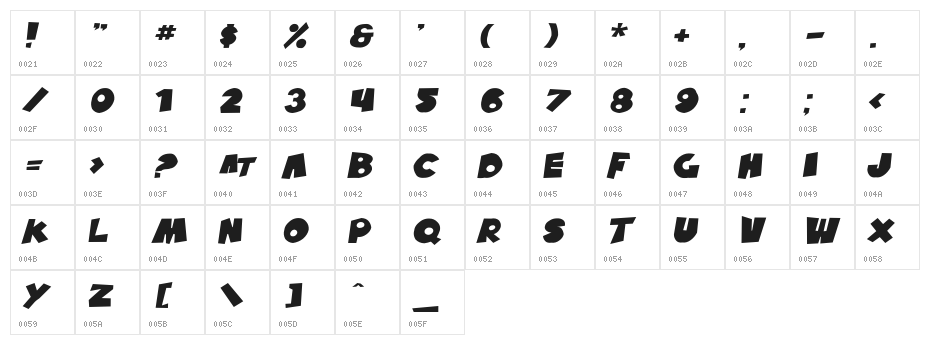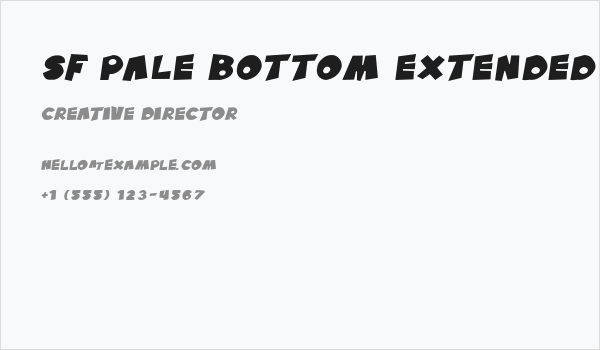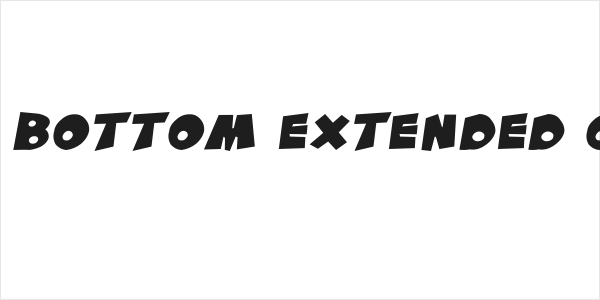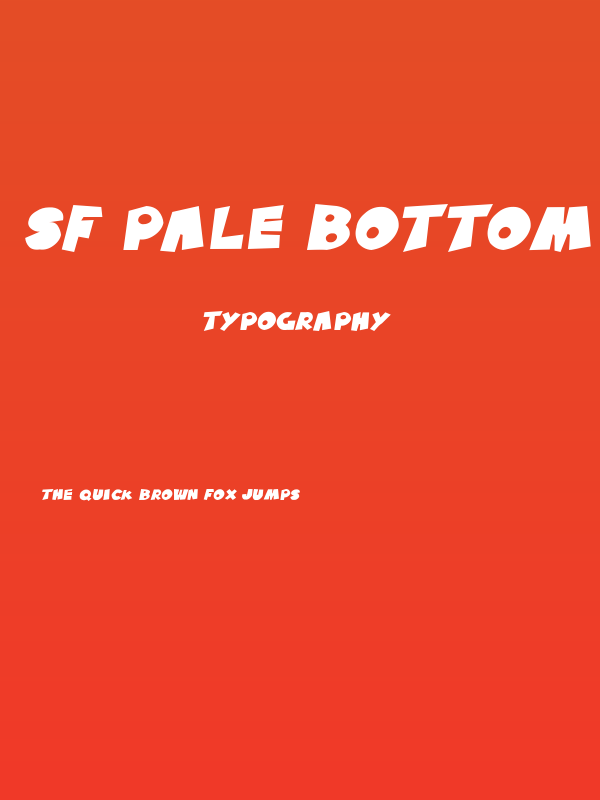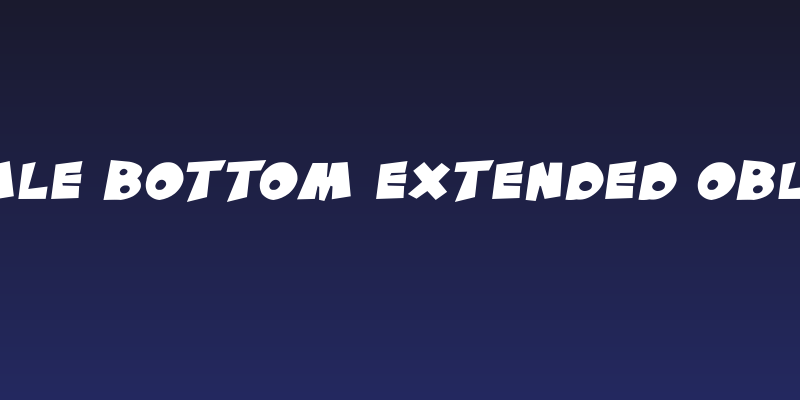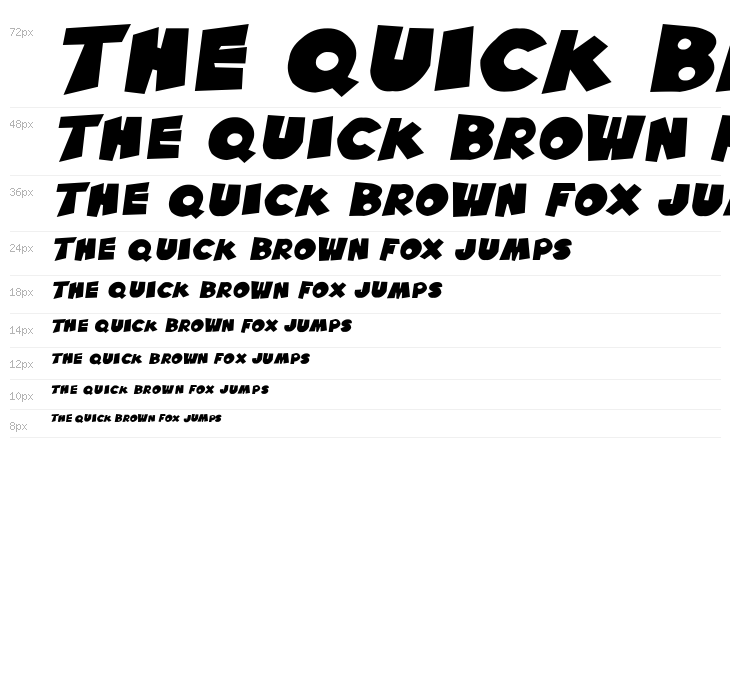
SF Pale Bottom Extended Oblique Font
SF Pale Bottom Extended Oblique Description
This font features a bold and dynamic style with a distinct slant, giving it an oblique appearance. The characters are wide and extended, providing a strong visual impact. The design includes sharp angles and a playful, energetic feel, making it suitable for attention-grabbing headlines or creative projects. The uppercase and lowercase letters maintain a consistent style, while the numerals and special characters complement the overall aesthetic. The font's unique style is both modern and slightly retro, offering versatility for various design needs.